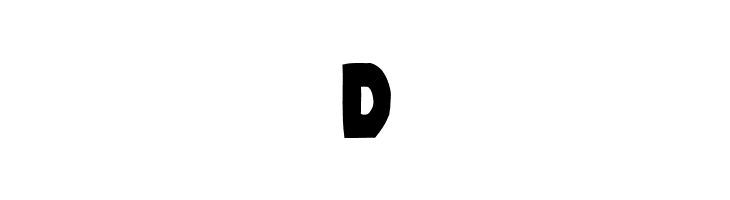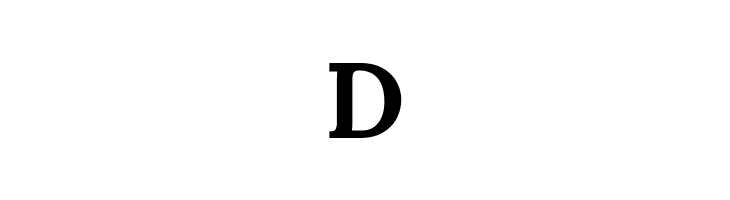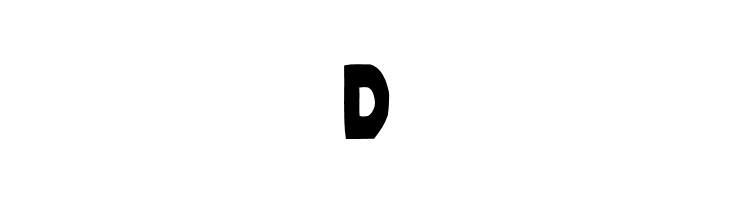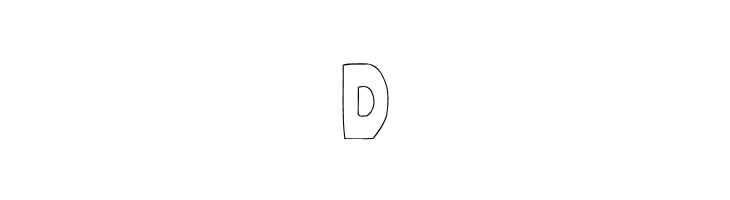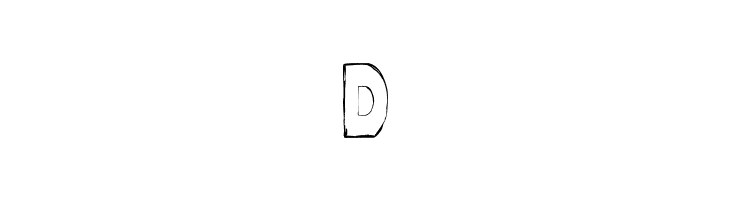
A bold, rounded font with thick strokes and a playful, assertive style.
A playful, hand-drawn style font with bold, rounded characters.
A playful, bold outline font with a modern and creative style.
A bold, playful font with a distinctive shadow effect.
A playful, sketch-like font with a hand-drawn, artistic feel.
A bold, playful font with a modern, slightly quirky style.
A playful, thin, and geometric font with a modern aesthetic.
A bold, angular font with a futuristic and geometric design.
A modern serif typeface with high contrast and elegant serifs.
A bold, classic serif font with medium contrast and elegant curves.